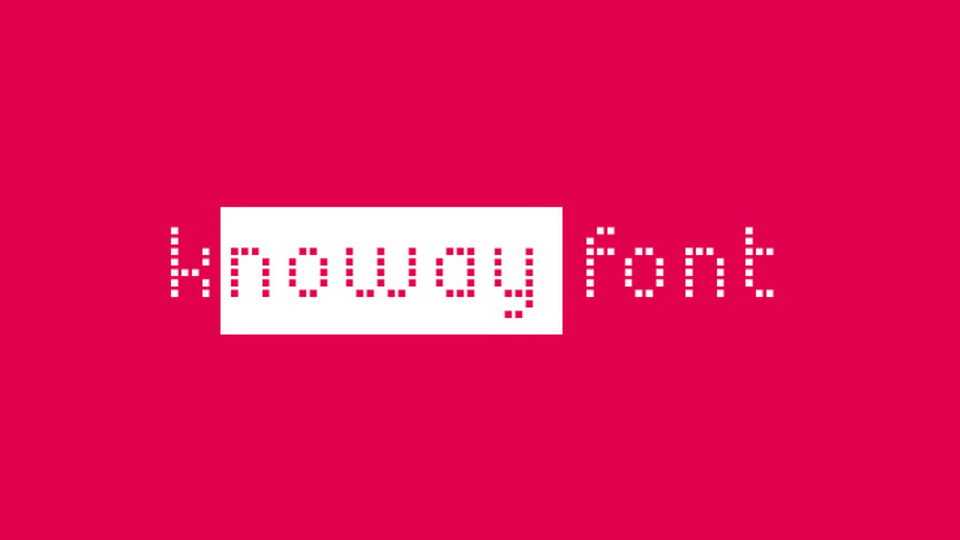
Download Knoway font, a monospaced pixel typeface designed for branding identity. Knoway font fits great for techno, digital and game design, headlines, posters and other creative projects.